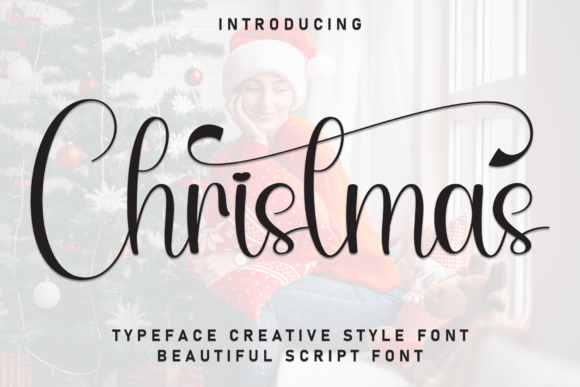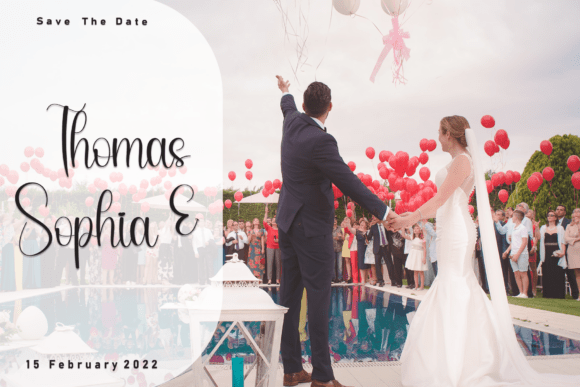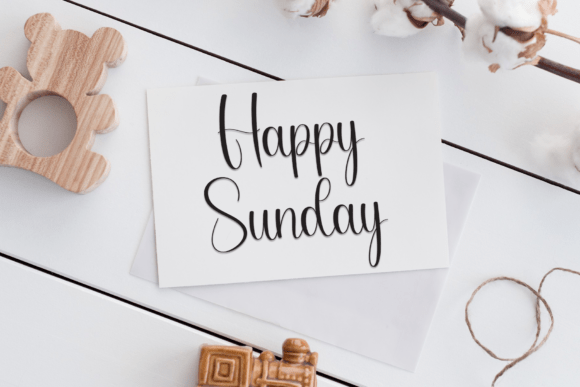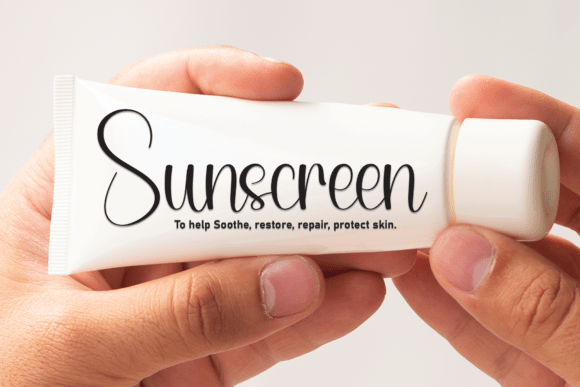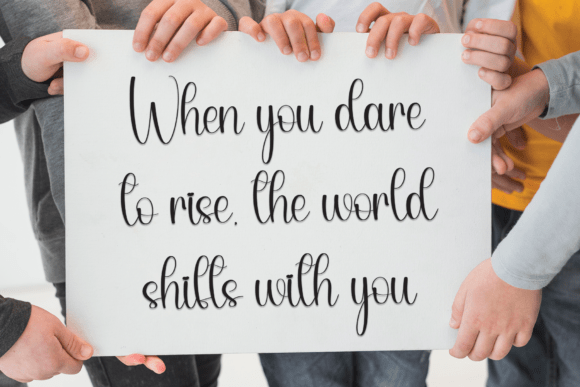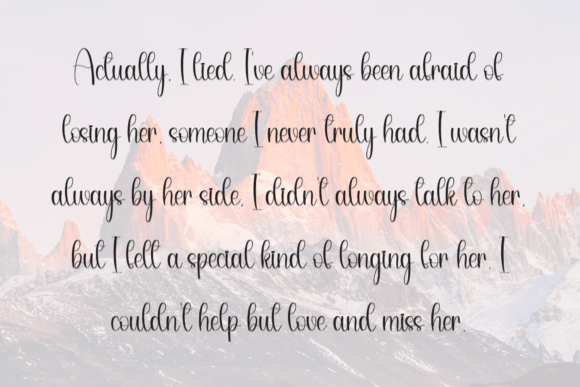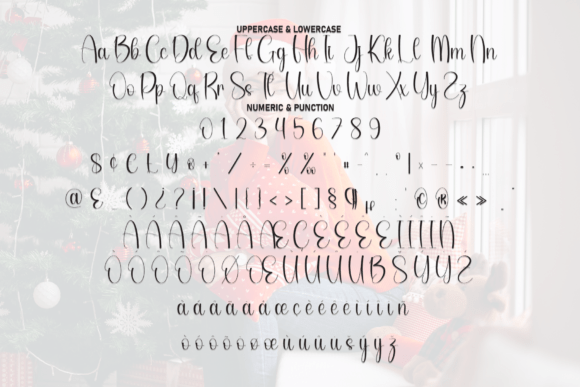
The Magic of Christmas Font
As the festive lights start twinkling and the air fills with the sweet scent of sugar cookies, many designers begin brainstorming ideas for their holiday projects. It’s that time of the year when creativity knows no bounds, and the possibilities are endless. For those seeking to add a dash of whimsy to their designs, the perfect font is just around the corner.
Enter the enchanting Christmas Font, a meticulously handcrafted typeface that exudes a captivating balance of affection and friendliness. This radiant font is the perfect choice for designers looking to create standout invitations, greetings, or any creative assignment that requires a splash of magic. With its unique charm, Christmas Font is sure to infuse your designs with magnetism and vigor, making it an invaluable asset for any designer looking to add a festive touch to their work.
Key Features of Christmas Font
- Font Family: Christmas Font is a festive font family that includes various styles and weights, perfect for holiday designs and messages.
- Unique Characteristics: Christmas Font features a unique, hand-drawn design with intricate details and ornaments, adding a touch of elegance and festivity to any design.
Designer Review: Christmas Font
I recently had the chance to play around with the ‘Christmas Font’, and I have to say, it’s a mixed bag. Here are my thoughts:
✨ I love the festive vibe this font gives off. It’s perfect for any holiday-themed project, from greeting cards to social media graphics. The font is also highly customizable, with plenty of options for color and size adjustments.
✨ The font’s playful, cursive design makes it ideal for adding a touch of whimsy to your designs. I especially appreciate how the font’s bold lines and rounded edges give it a fun, childlike feel.
⚠️ While the font is highly customizable, it can be a bit overwhelming for beginners. With so many options, it’s easy to get lost in the settings and end up with a design that’s too cluttered or hard to read.
⚠️ I also noticed that the font doesn’t work well with smaller text sizes. At smaller sizes, the font’s bold lines can become difficult to read, making it harder to use in certain contexts.
While the Christmas Font has its limitations, it’s still a great choice for any holiday-themed project. With a little practice and patience, you can create some truly unique and eye-catching designs. Just be sure to keep the font size and customization options in check to avoid any readability issues.
Some tips for getting the most out of Christmas font include using it in combination with other festive graphics and colors, such as red and green.
Common use cases for Christmas font include:
– Creating holiday cards and invitations
– Designing festive social media graphics
– Making holiday-themed party decorations
– Creating holiday-themed merchandise, such as t-shirts and mugs.